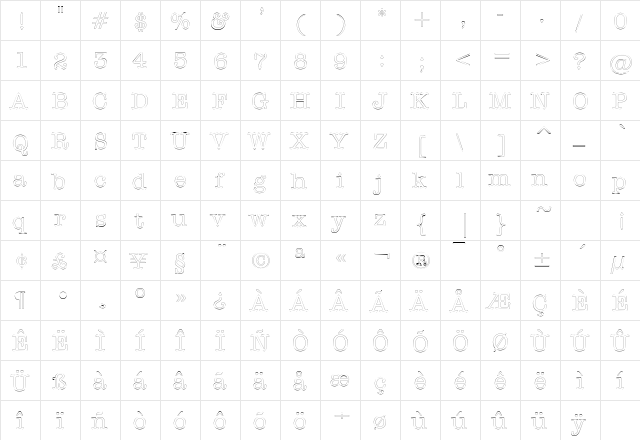
DatelineOutline Regular
Design Context for DatelineOutline Typeface
DatelineOutline brings ornamental detail and strong personality to headlines and identities, where visual impact matters more than quiet functionality.
Font Pairing: Pair with a clean neutral sans-serif for body copy to let DatelineOutline's character lead without overwhelming the composition.
Pro Tip: Treat DatelineOutline as the centrepiece of your typographic hierarchy. One strong heading set in a decorative face can carry an entire layout.